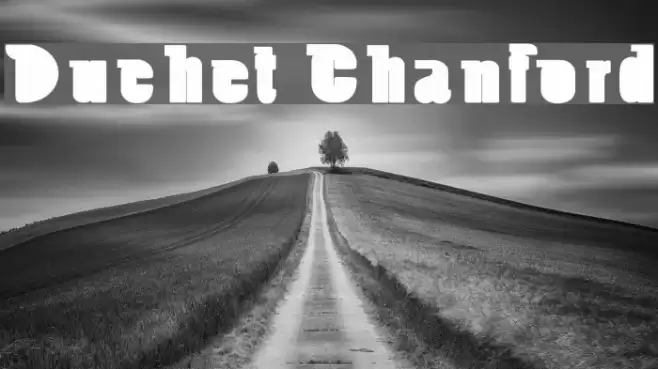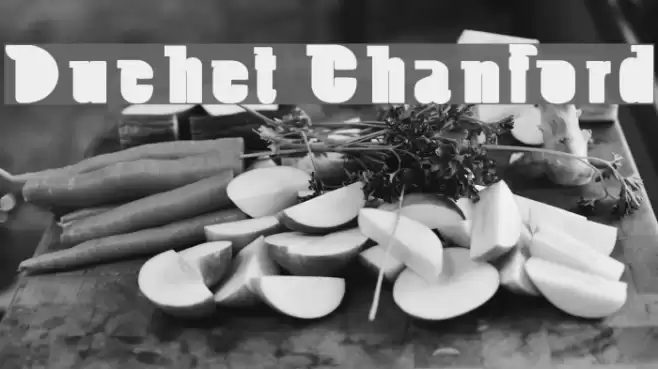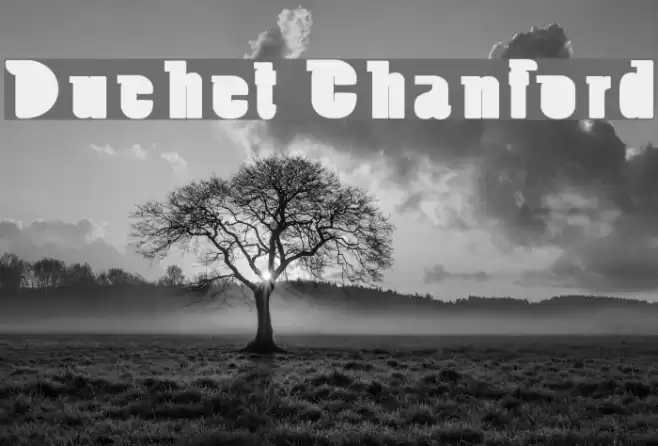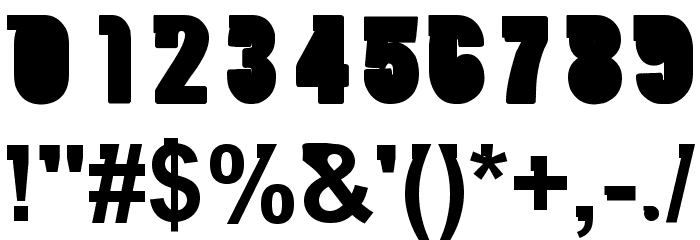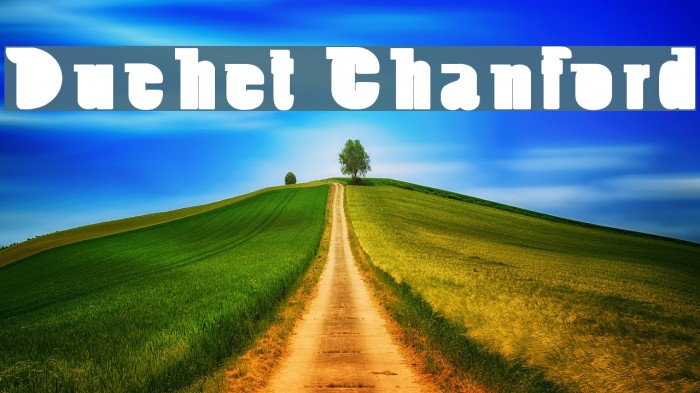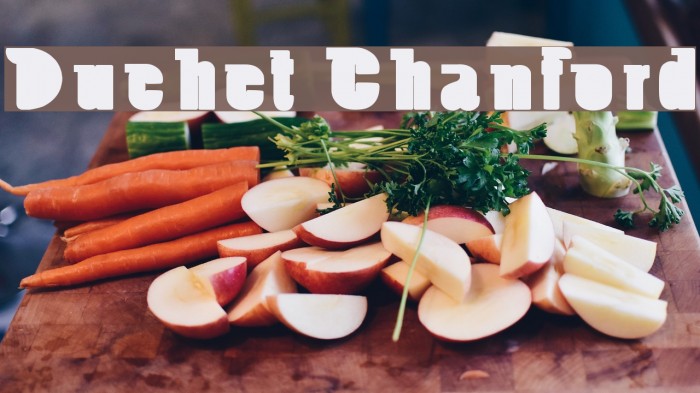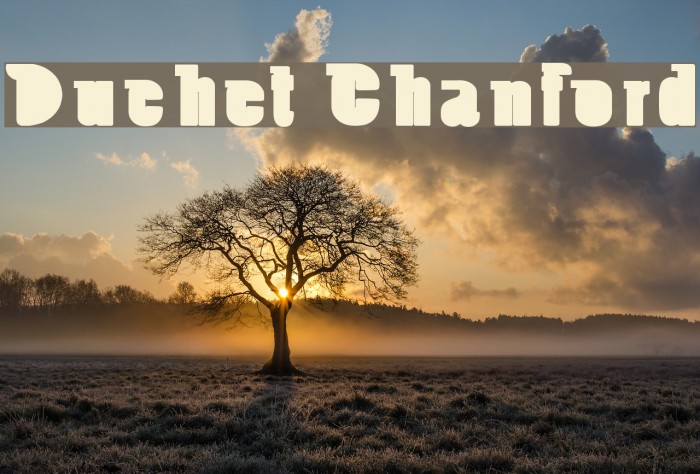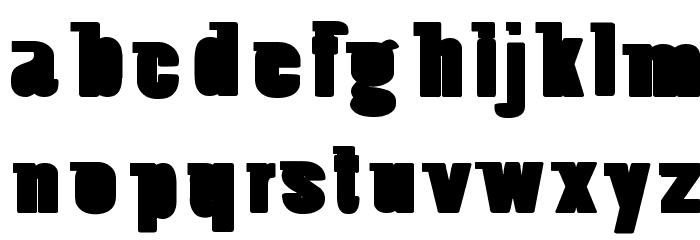
Duchet Chanford Font
Duchet Chanford Description
This bold, decorative font features thick, blocky characters with a strong presence. Each letter is designed with a unique, playful cutout style that adds a sense of movement and energy. The uppercase and lowercase letters maintain a consistent weight, creating a cohesive look across the alphabet. Numbers and special characters follow the same bold style, ensuring uniformity. The font's design is eye-catching and ideal for making a statement, with its high contrast and wide character spacing enhancing readability and impact.
A bold, decorative font with playful cutout designs and high contrast from Uncategorized fonts.
- Proposed Projects: Ideal for posters, headlines, branding, and any project needing a bold, attention-grabbing typeface.
- Character Spacing: Wide